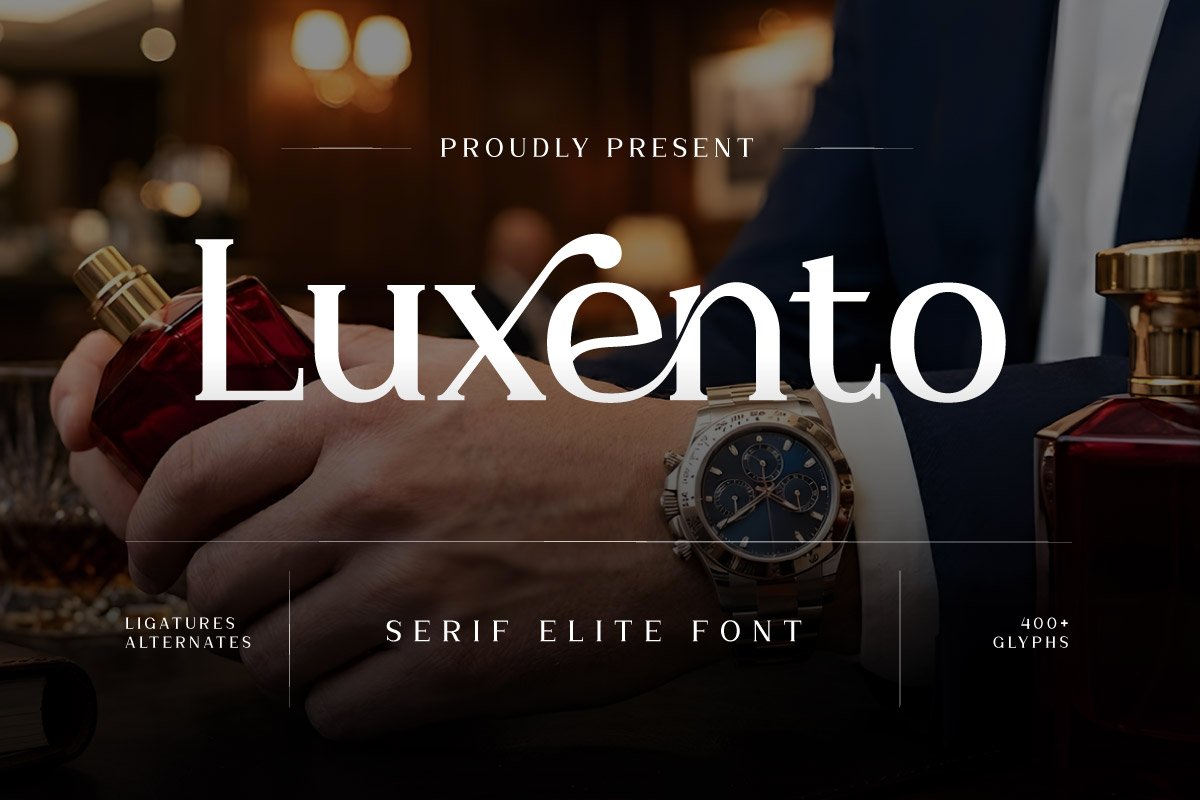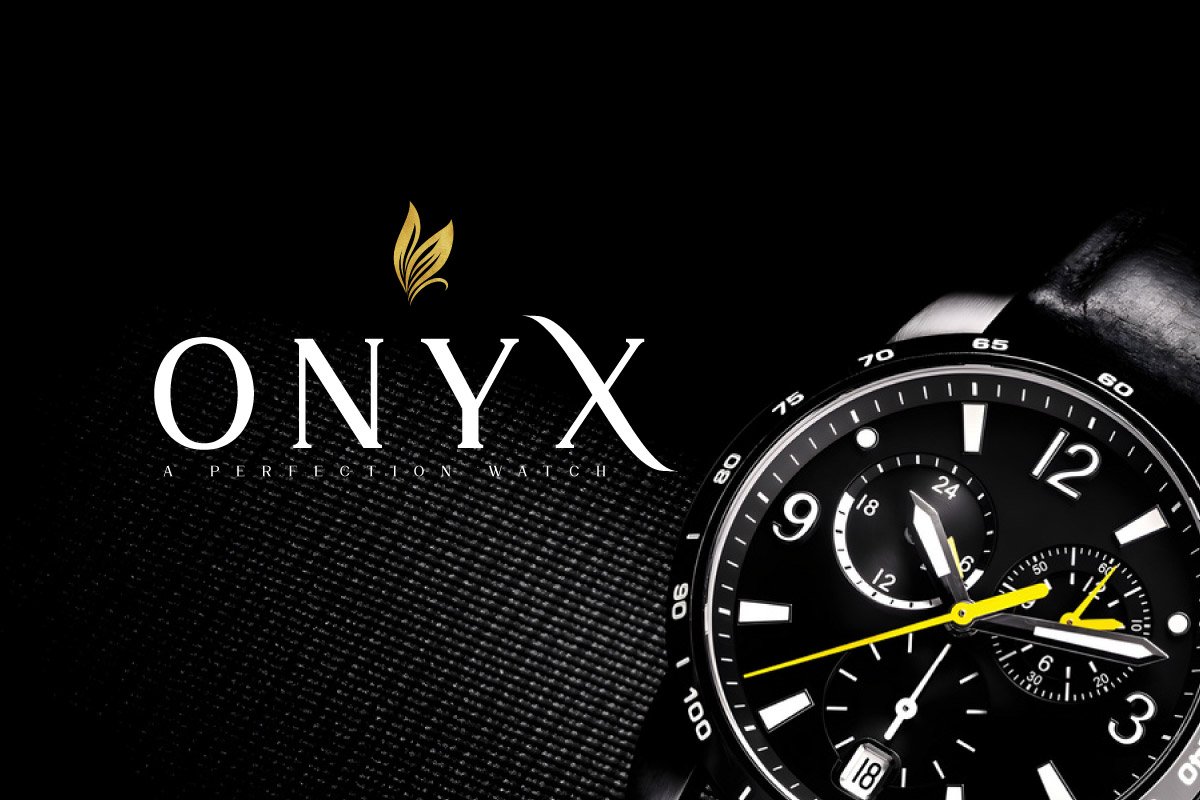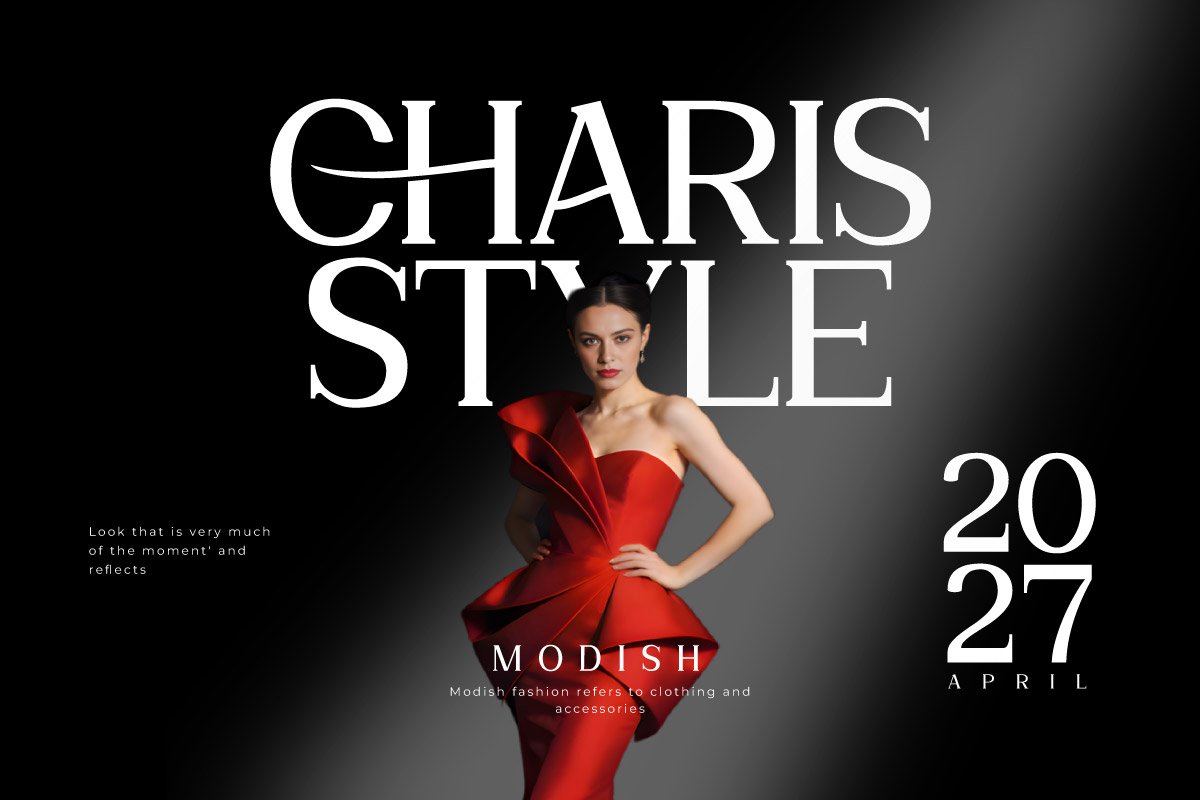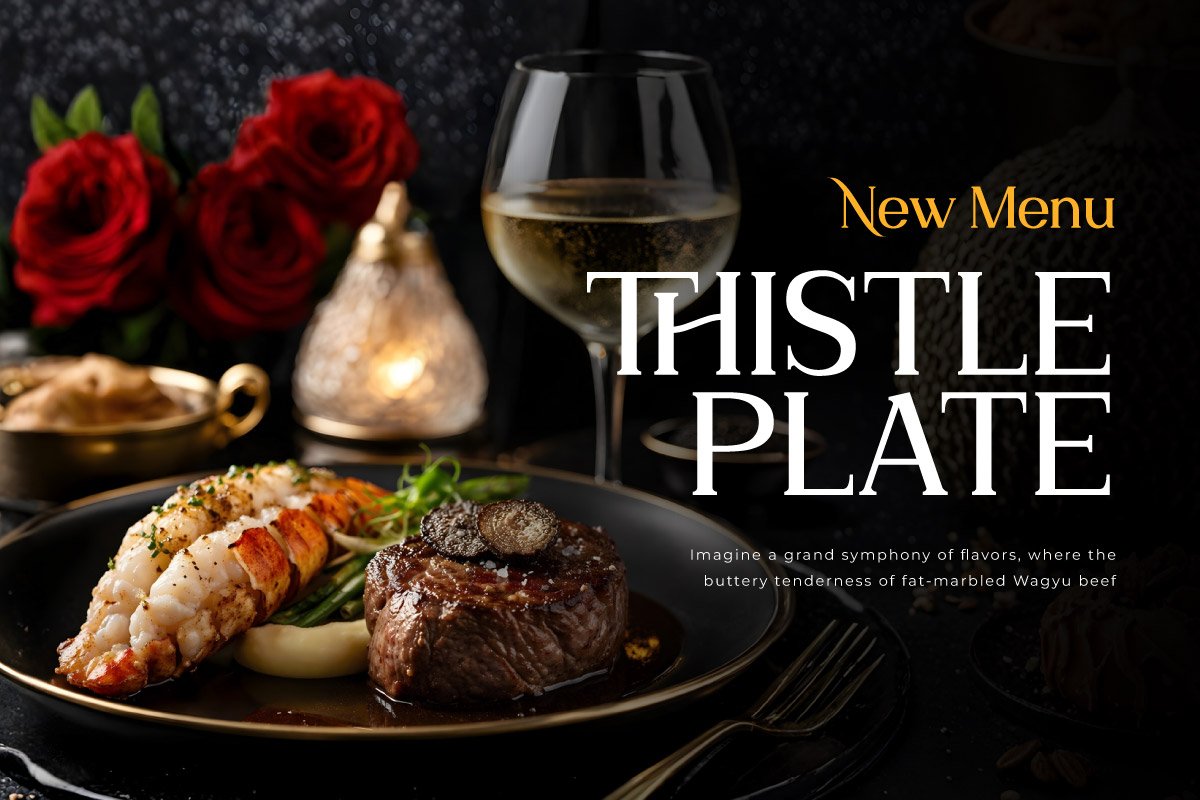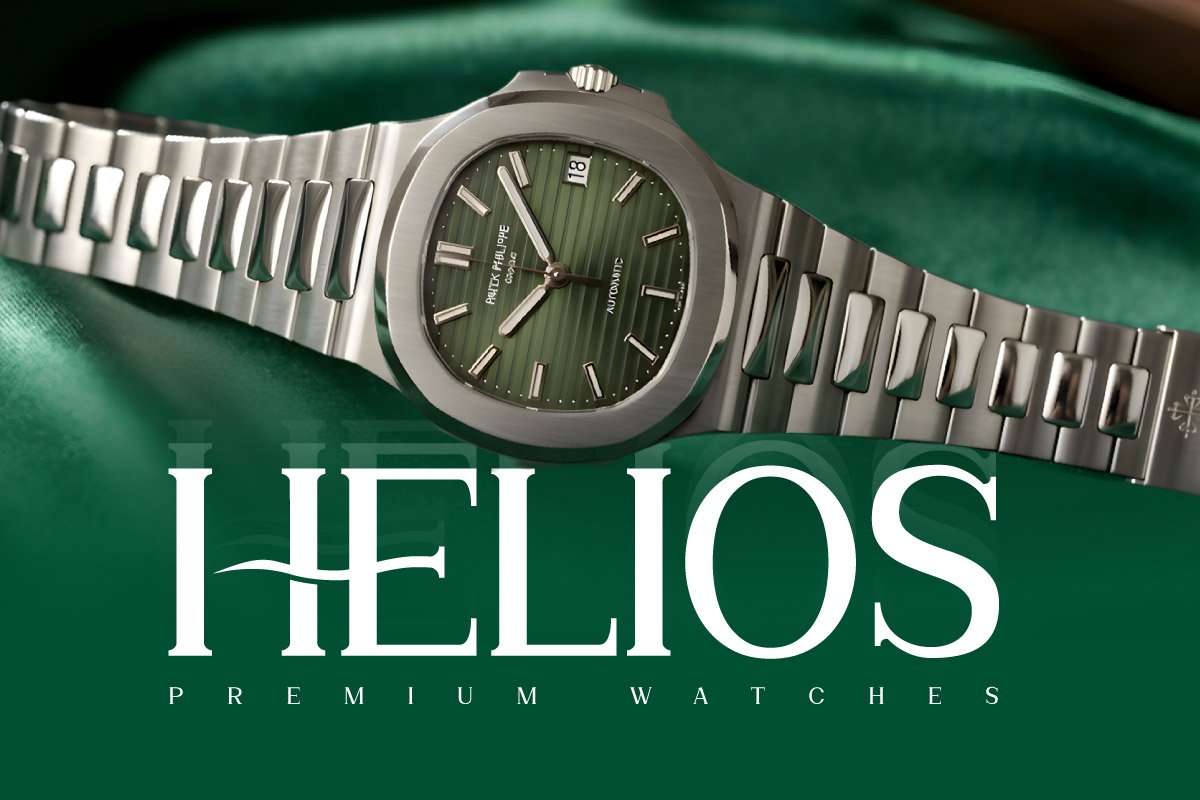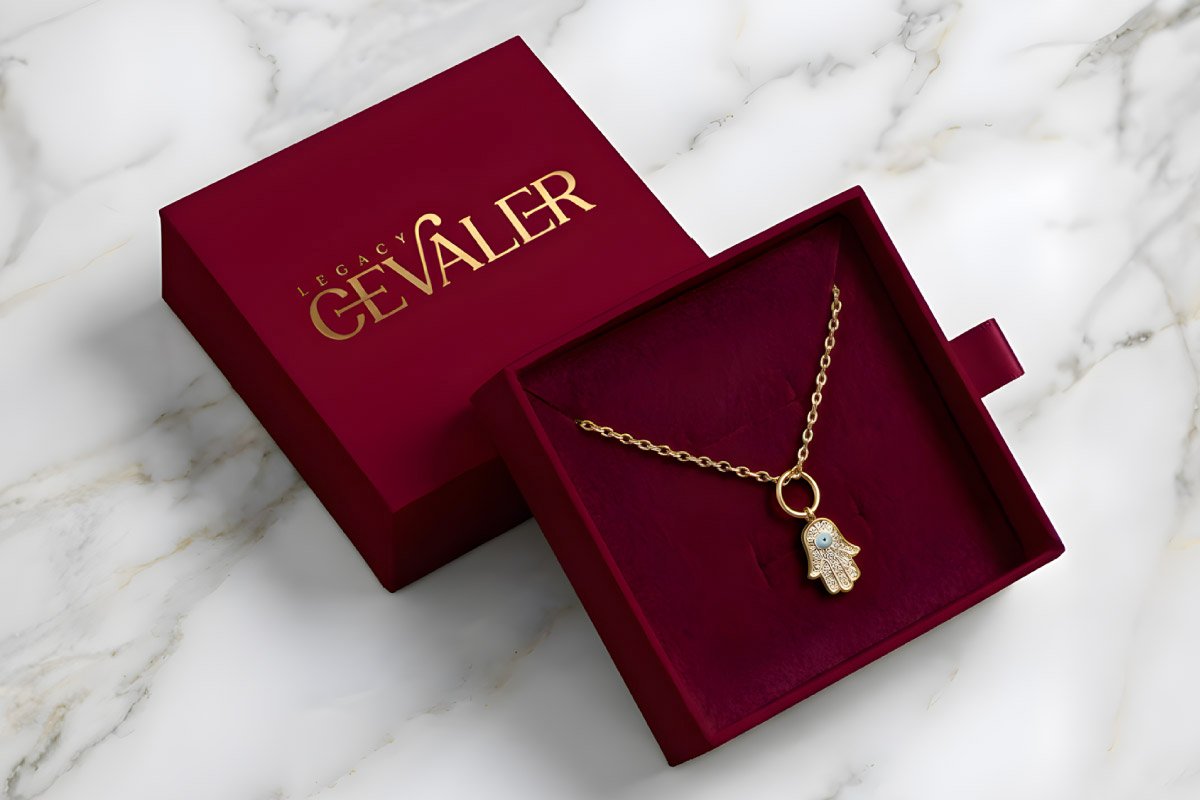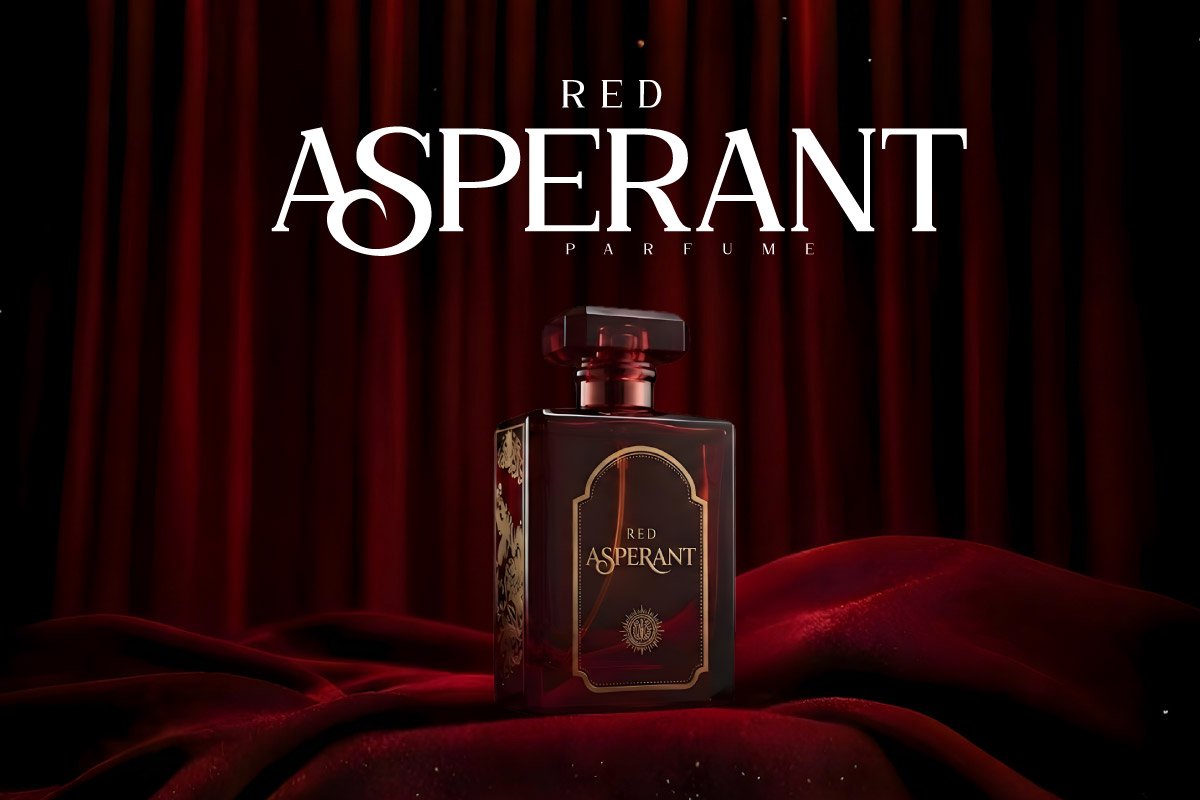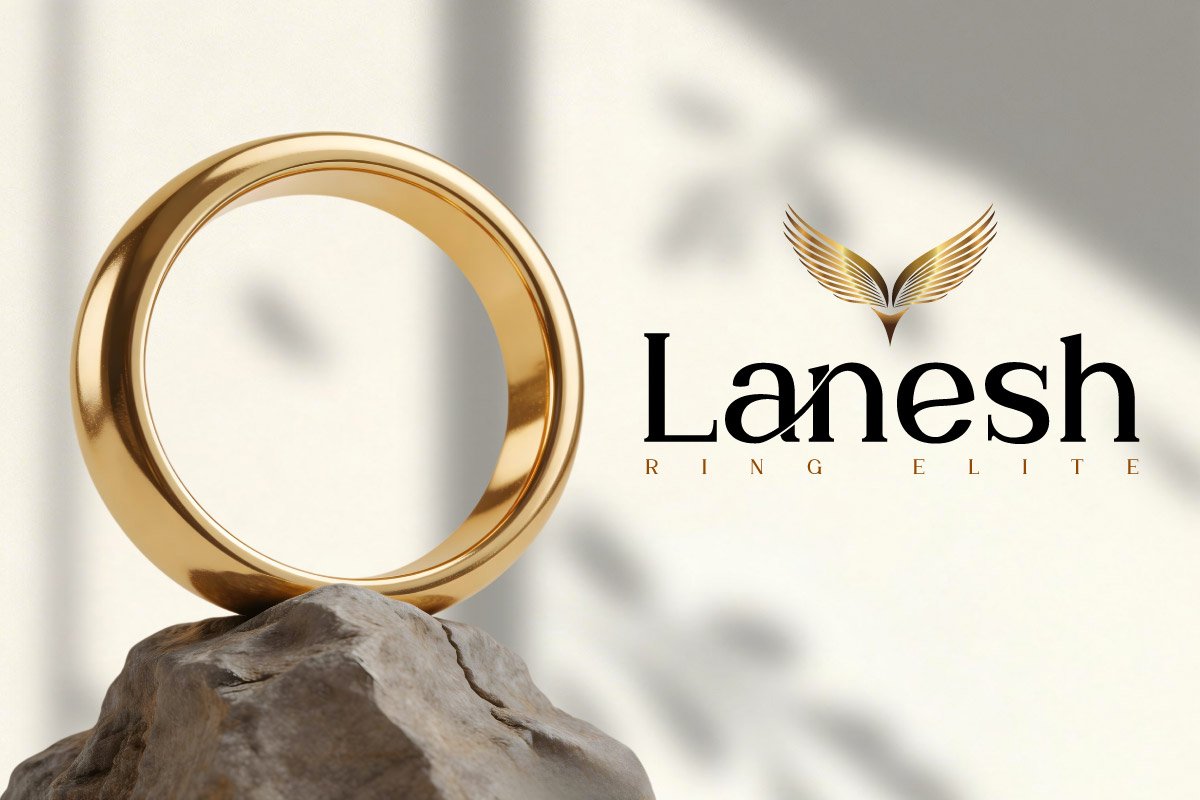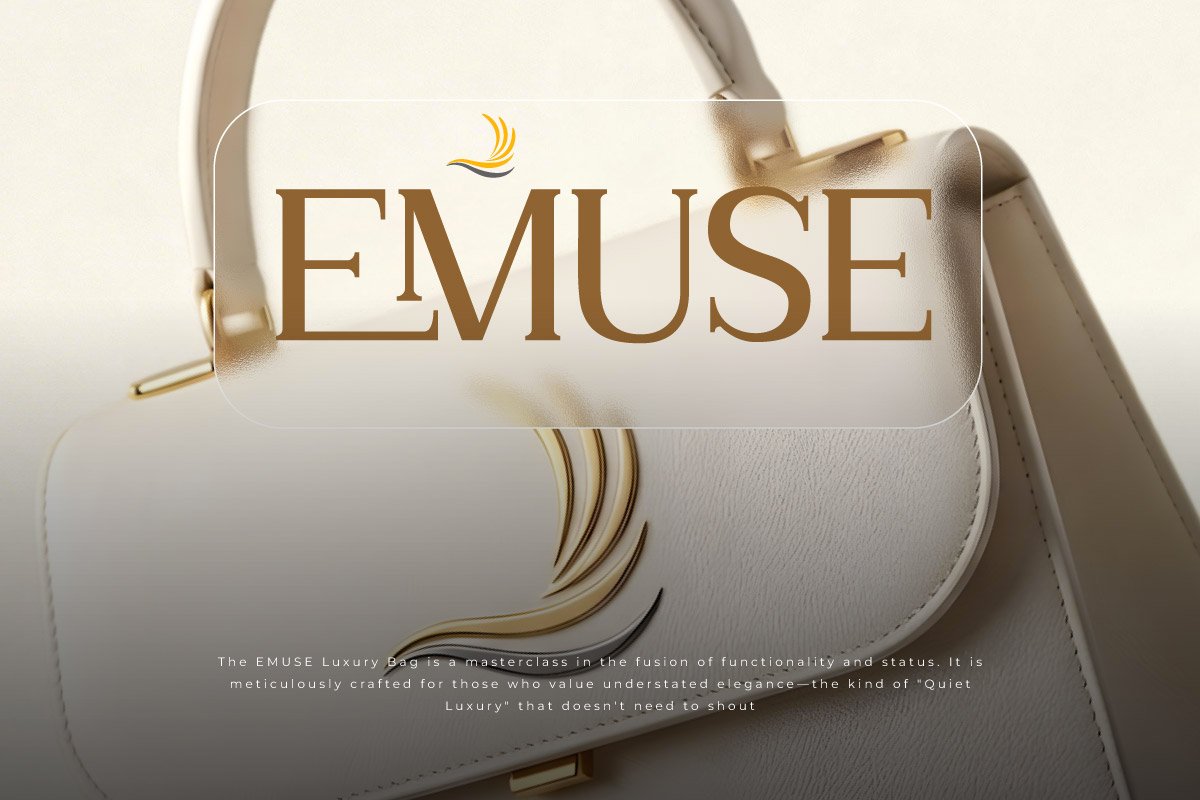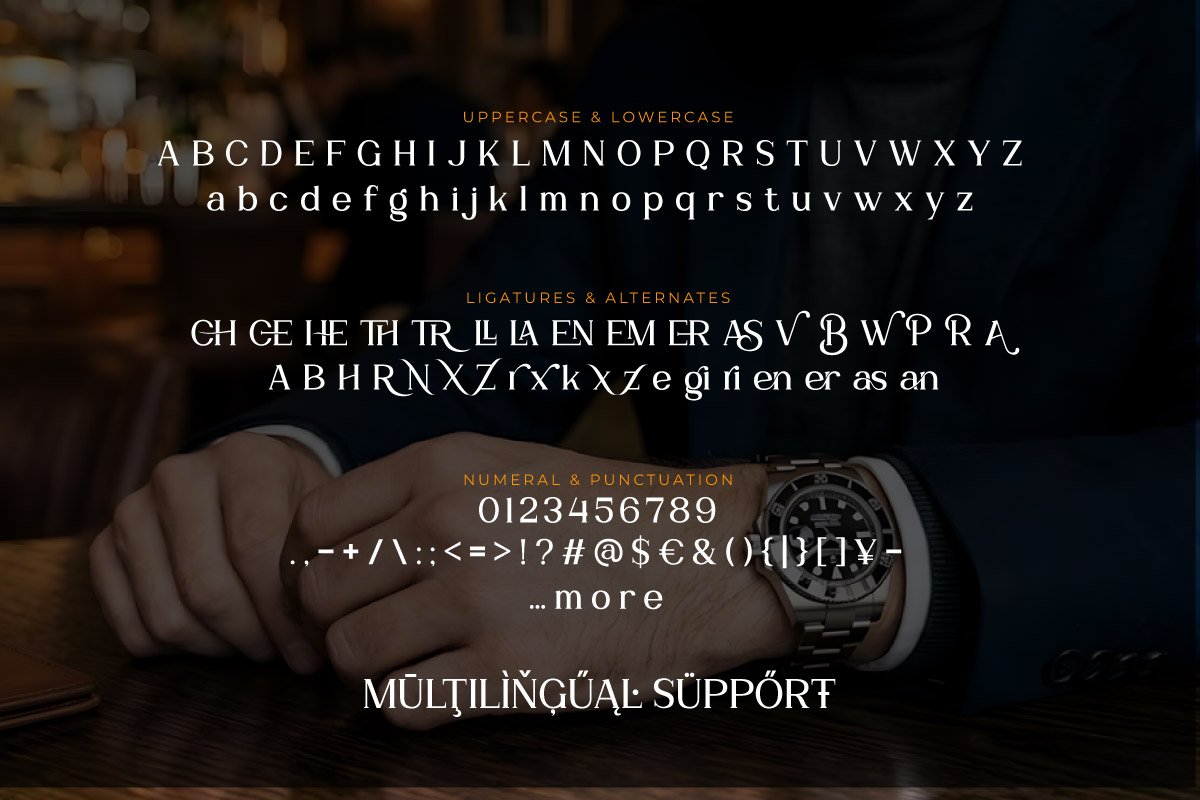
- Luxento – Elite Serif Font
Luxento is an Elite Serif typeface designed to embody the Quiet Luxury aesthetic within the high-end lifestyle industry. Featuring balanced proportions and sharp serif details, this font delivers an exclusive and authoritative impression. Its characteristics are ideal for Global Elite Branding requiring a graceful, minimalist, and timeless visual identity.
Its precise letter anatomy reflects high-quality standards, perfectly aligned with the visual needs of the High-End Fashion & Horology sectors. Inspired by the luxury of premium watch designs and international fashion magazines, Luxento provides a professional look for logos, editorial layouts, and exclusive promotional materials. The design structure ensures every word exudes an aura of calm yet powerful sophistication.
As a premium typography solution, Luxento features refined ligatures that add artistic value to both digital and print designs. This font is the perfect choice for designers aiming to build a world-class brand image with high aesthetic standards. Luxento helps create a luxurious, sharp, and highly curated visual experience for a global elite audience.